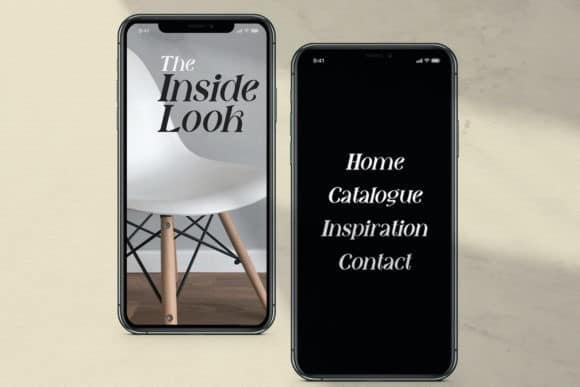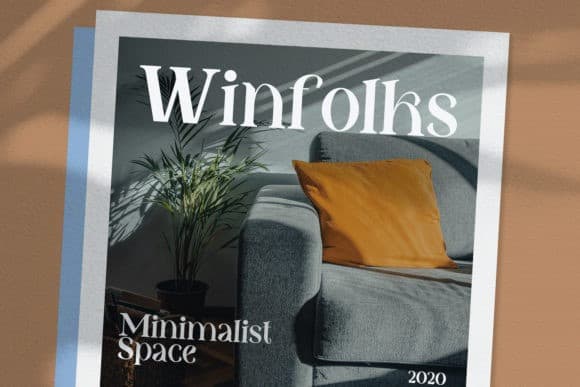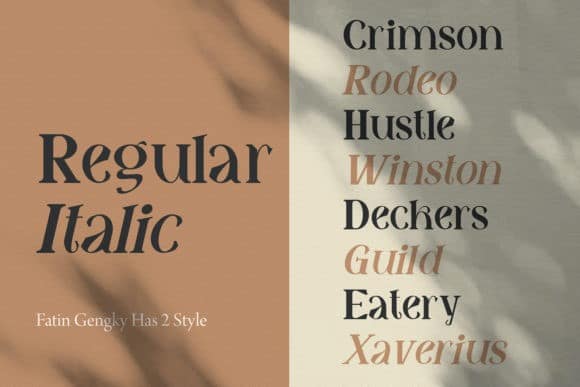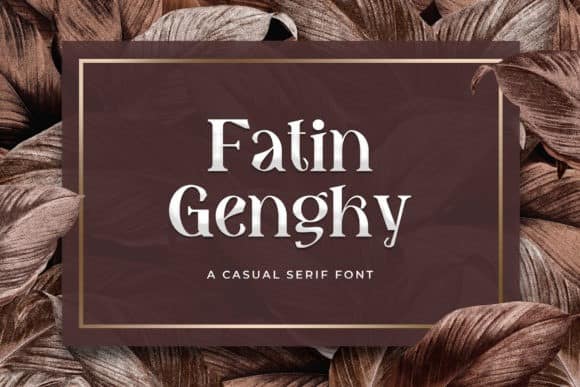
Introducing Fatin Gengky Serif Font, a serif-style typeface with bold and strong characters. You can use it as display text for big headlines, text in long writing, poster designs, logotype designs with an old impression. This typeface is designed and shared by sartstudio. It’s an authentic and neat serif font. It can easily be matched to an incredibly large set of projects, so add it to your creative ideas and notice how it makes them stand out!